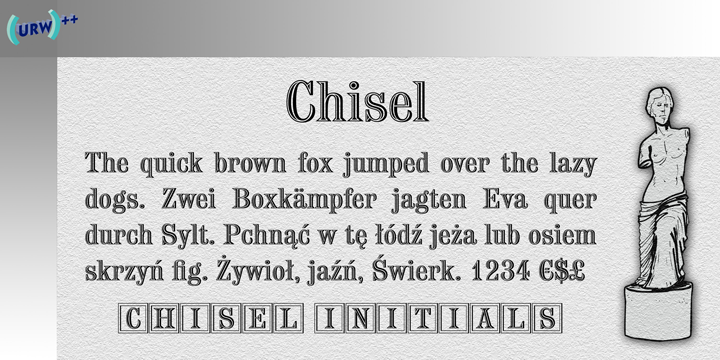
This carved typeface is perfect for stone carving services, monument makers, sculpture studios, architectural engraving, memorial services, craft workshops, woodworking businesses, artisan tool brands, traditional craftsmanship schools, heritage restoration projects, custom stonework companies, and handcrafted lifestyle brands. The font's carved design makes it ideal for projects that celebrate traditional craftsmanship, precision carving, and the timeless art of creating permanent impressions in stone and wood with skilled handiwork and dedication.
Chisel Font is exciting because it embodies artisan craftsmanship and carved precision through its etched letterforms and tool-inspired character structure. The font's sharp edges and carved proportions create an atmosphere of skill, permanence, and traditional artistry, making it perfect for brands that want to convey craftsmanship, durability, and the authentic appeal of hand-carved work. Its crafted personality ensures instant recognition while maintaining excellent readability across various artisan applications.
The Chisel Font family includes multiple carved variations: Light Etch, Regular Carve, Medium Engrave, Bold Sculpture, and Black Monument weights, each available in standard and weathered versions. Special artisan editions feature carved alternates, tool ornaments, and craft symbols that enhance the font's handmade appeal, providing designers with comprehensive tools for creating authentic craftsmanship communications.
Carve lasting design impressions with Chisel Font Free Download – a typeface that represents artisan skill and carved permanence. Whether you're developing craft business branding, memorial service materials, or traditional craftsmanship campaigns, this font delivers the carved presence and artisan authenticity your projects need while ensuring exceptional performance and lasting impact across all carving and craftsmanship applications.